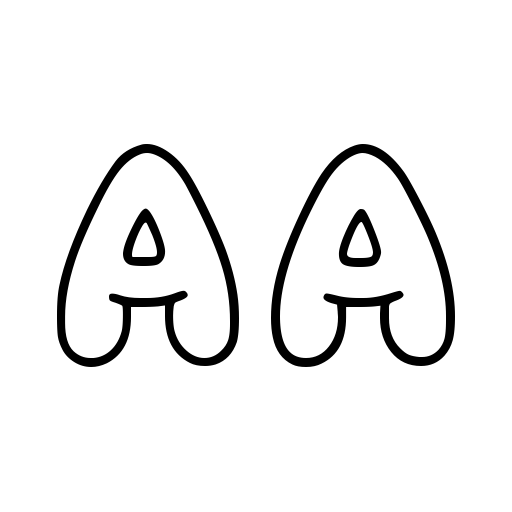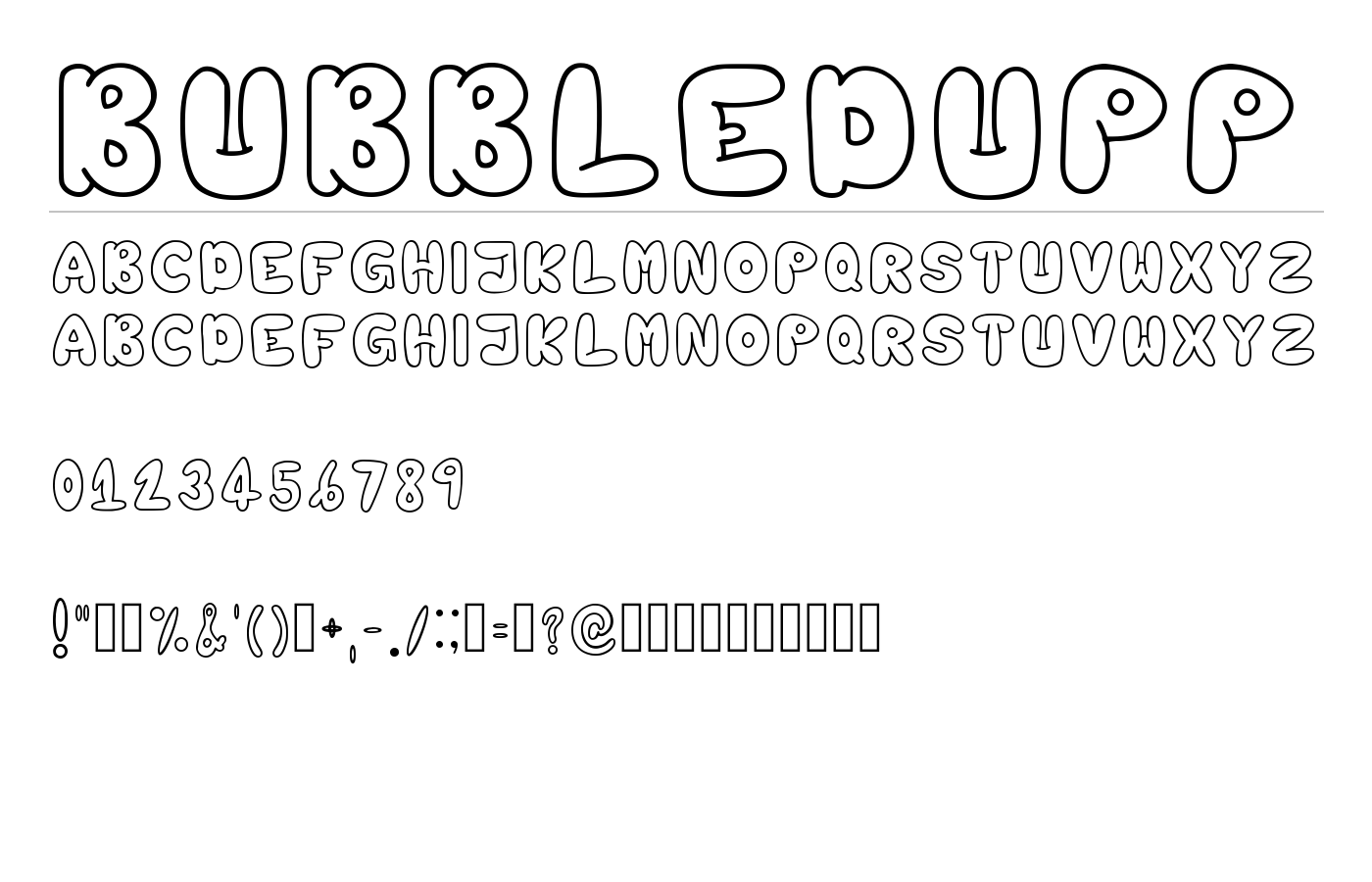
Bubbledupp is a playful, bold sans-serif font featuring rounded, bubble-like letterforms with a whimsical and friendly vibe. Its casual, hand-drawn style makes it perfect for children’s books, fun branding, and creative projects that need a lighthearted, approachable touch. With its thick outlines and soft curves, Bubbledupp works best in logos, headlines, and packaging where an energetic and joyful personality is desired.
Bubbledupp Font